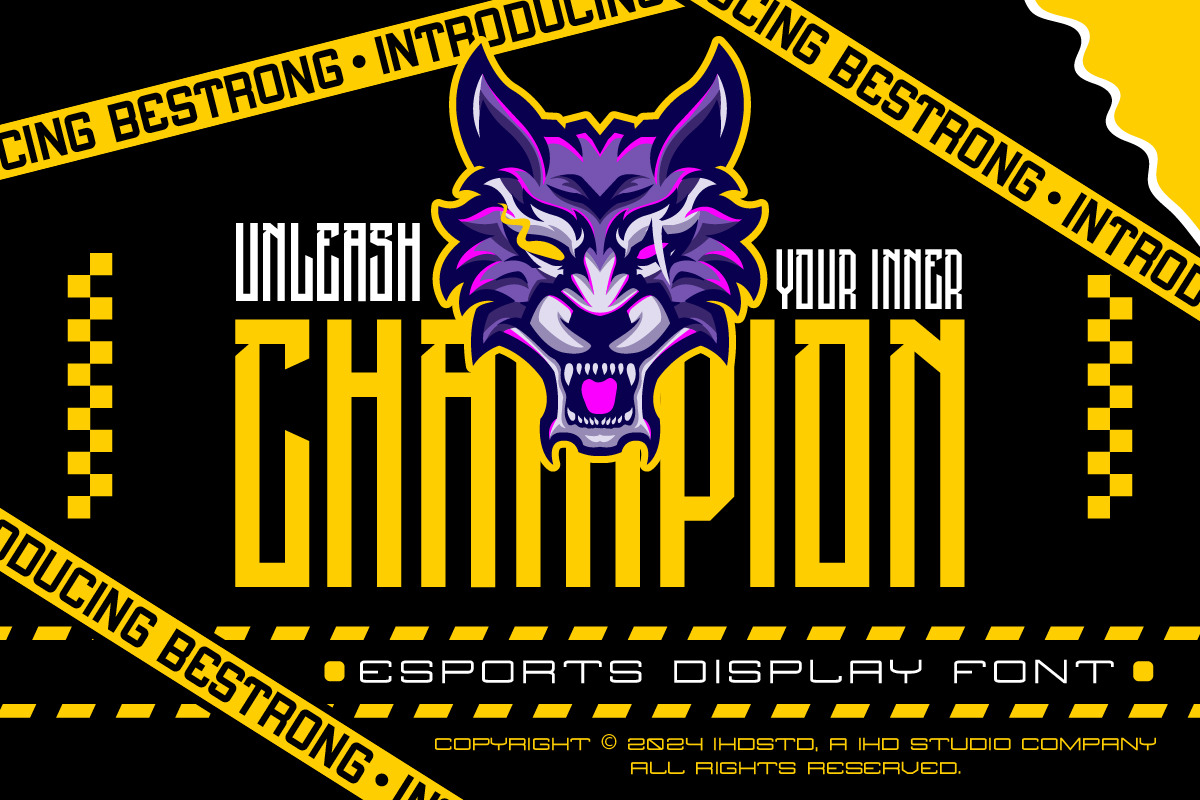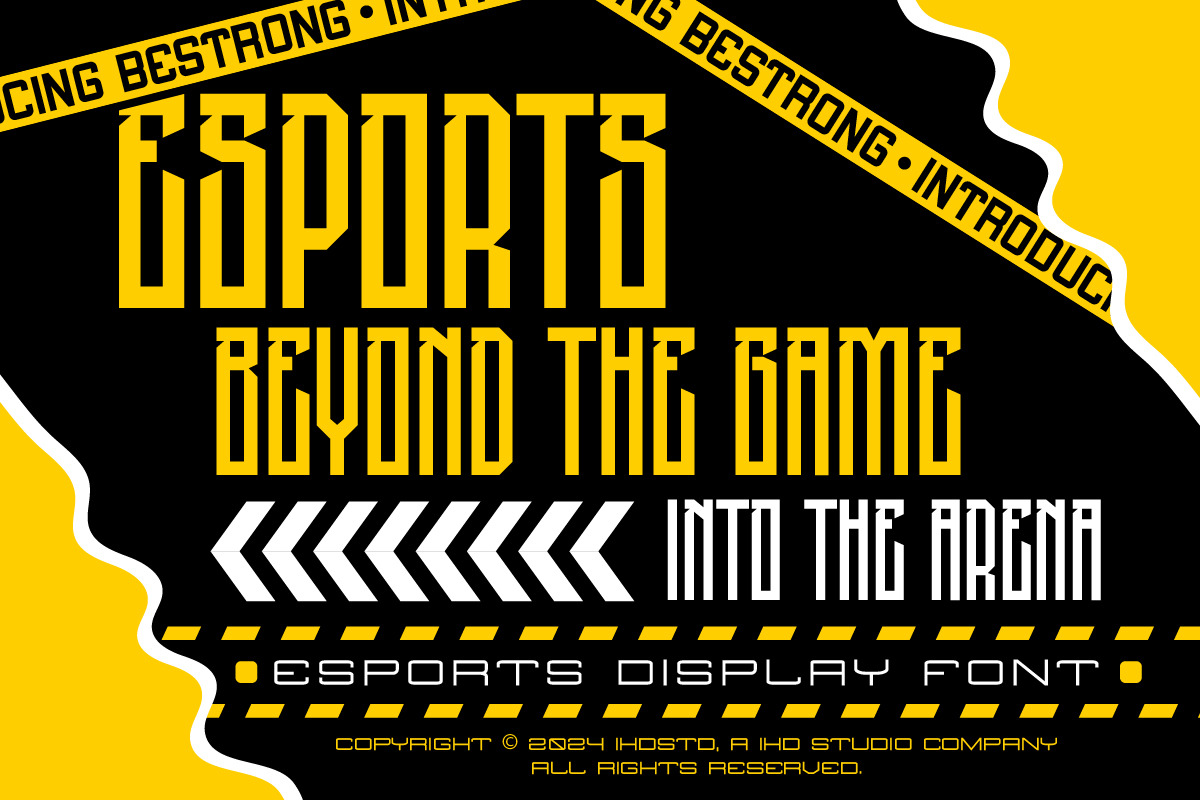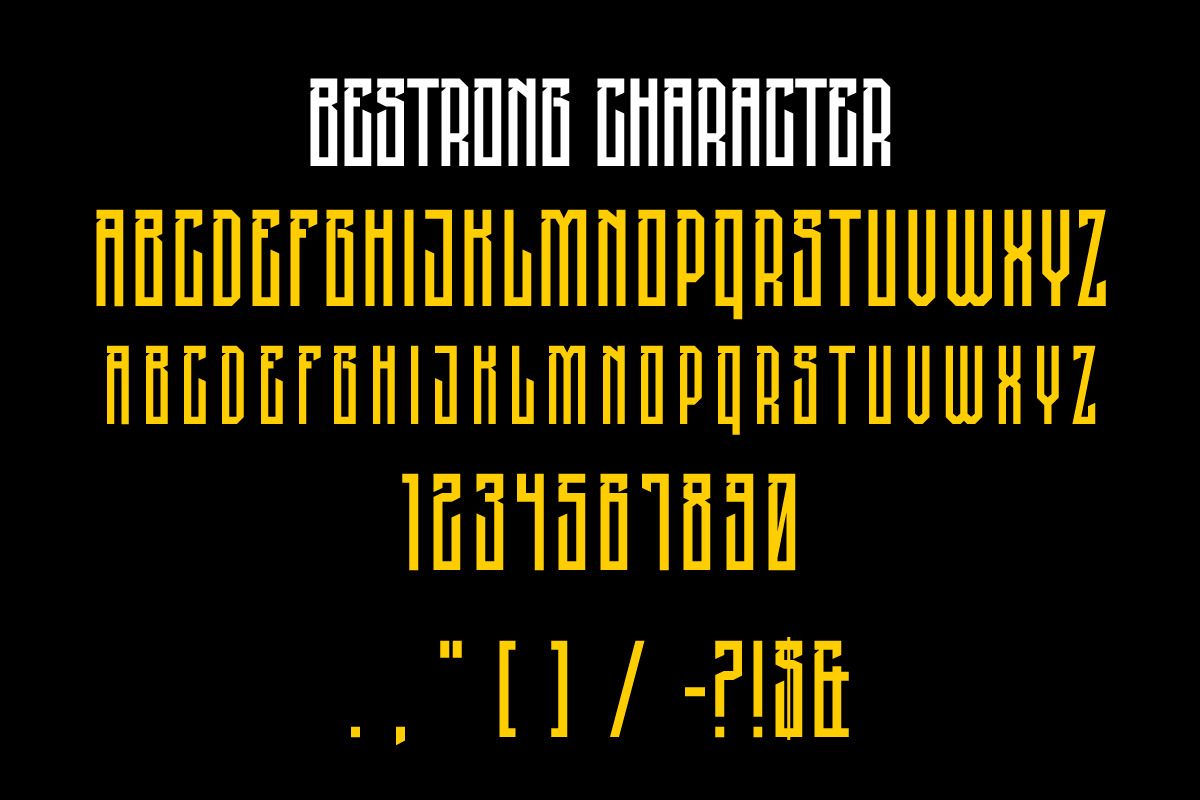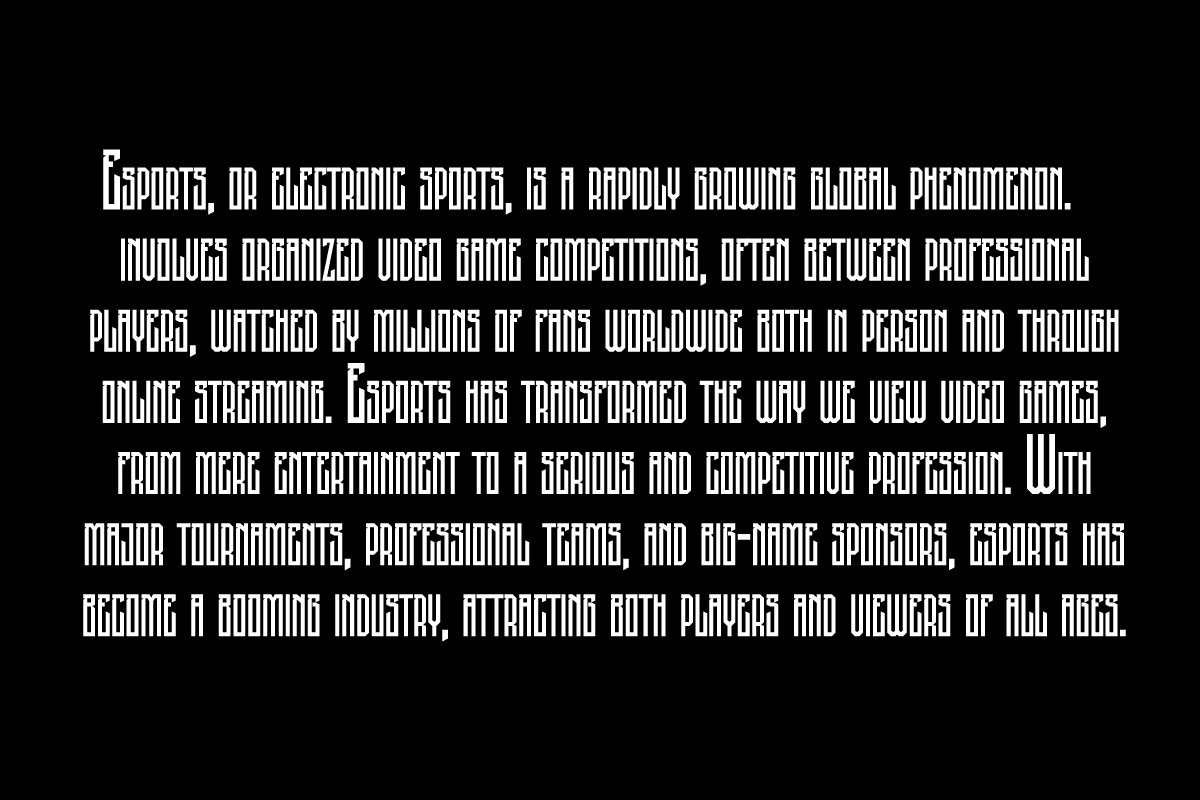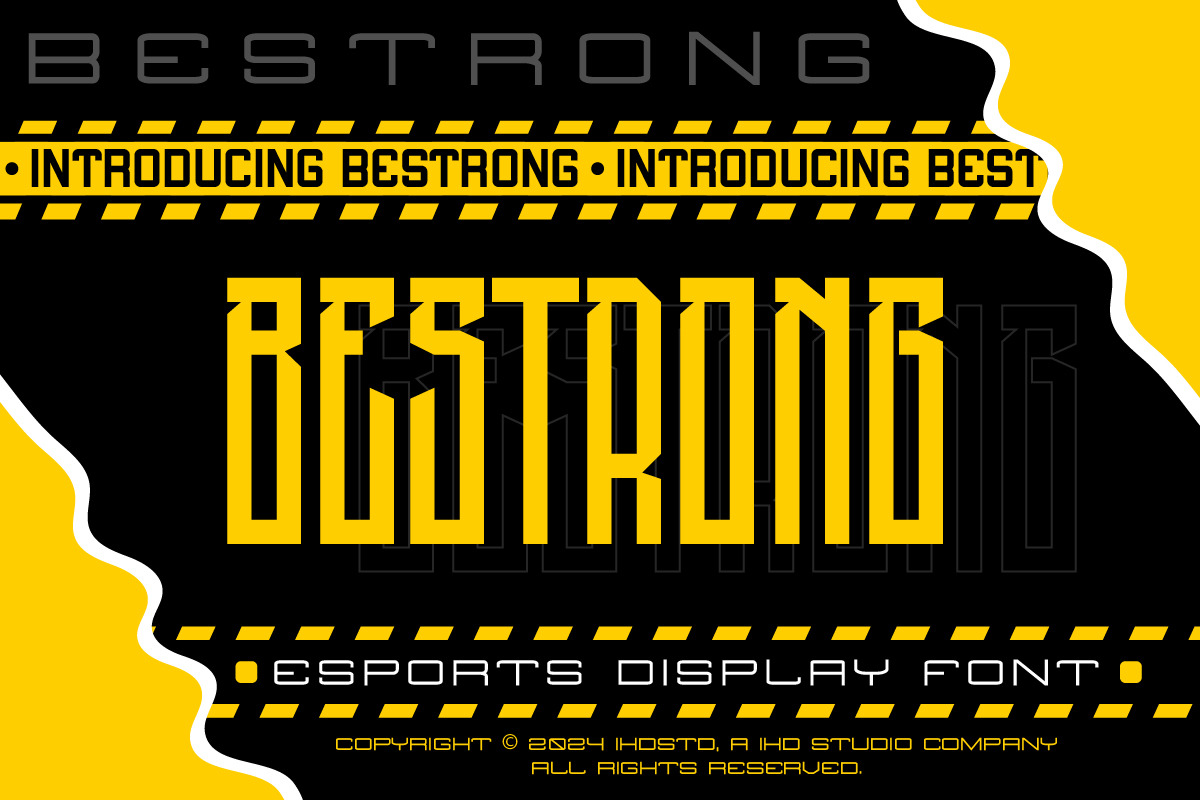
Bestrong Esports Display Font
Bestrong Esports Display Font is our new item suitable for your Posters.
Great for Logo, Poster, Sticker, Jerseys, Invitation Card, Brochure, etc.